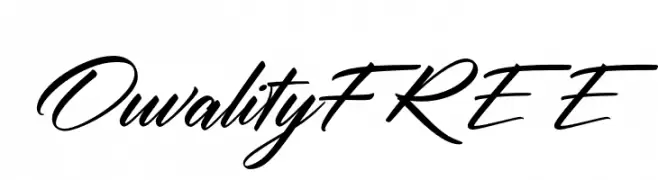
A graceful and elegant script font with flowing cursive letters and intricate swashes.
An elegant and flowing script font with graceful curves and a classic calligraphic influence.
A dynamic and elegant script font with fluid, cursive strokes.
A flowing, cursive font with elegant, interconnected characters.
An elegant and sophisticated script font with flowing curves and ornate swashes.
A dynamic and elegant script font with flowing, cursive letterforms.